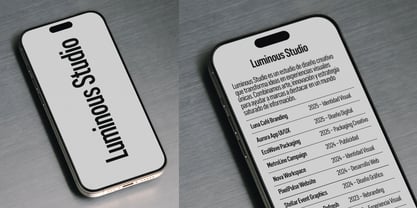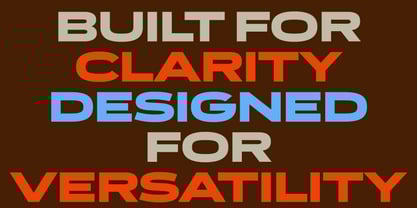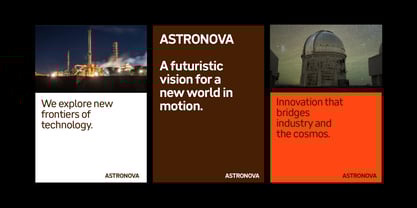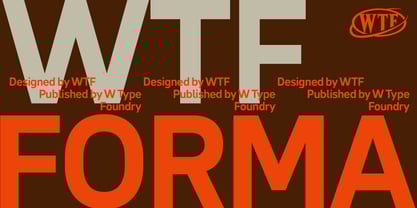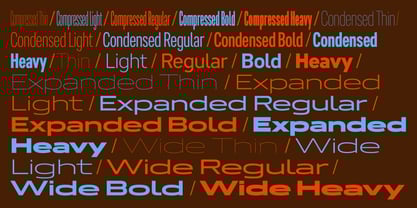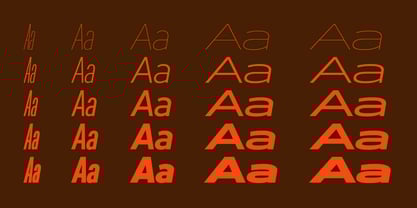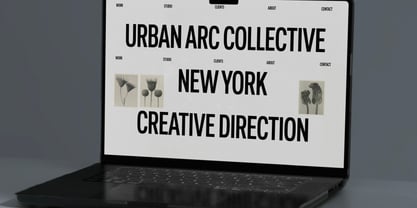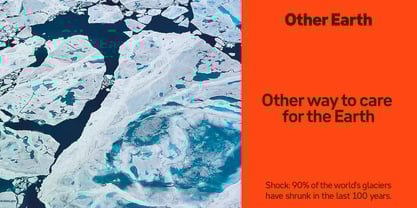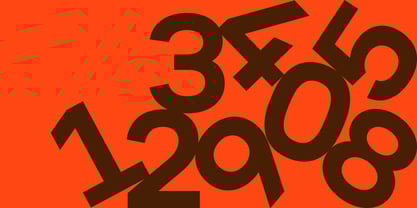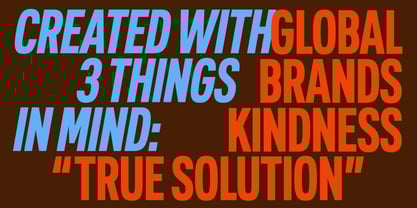
WTF Forma
WTF Forma was designed with three things in mind: big corporations, friendliness, and being a true “solution”. We wanted a typeface with a mature, professional look that still feels approachable—a reliable choice for multinational companies or businesses that need something legible and formal, yet warm and human to communicate with clients, employees, and other B2B partners. Inspired by DIN’s clarity and structure, WTF Forma delivers a contemporary voice for today’s global brands. It’s versatile yet restrained—orderly and functional—for long texts, short copy, lists, titles, presentations, and anything else a brand might need. With 50 styles including italics, WTF Forma hits the sweet spot: easy to use and easy to navigate across its whole range—from Compressed, Condensed, and Regular to Expanded and Wide. A reliable tool offering endless possibilities.